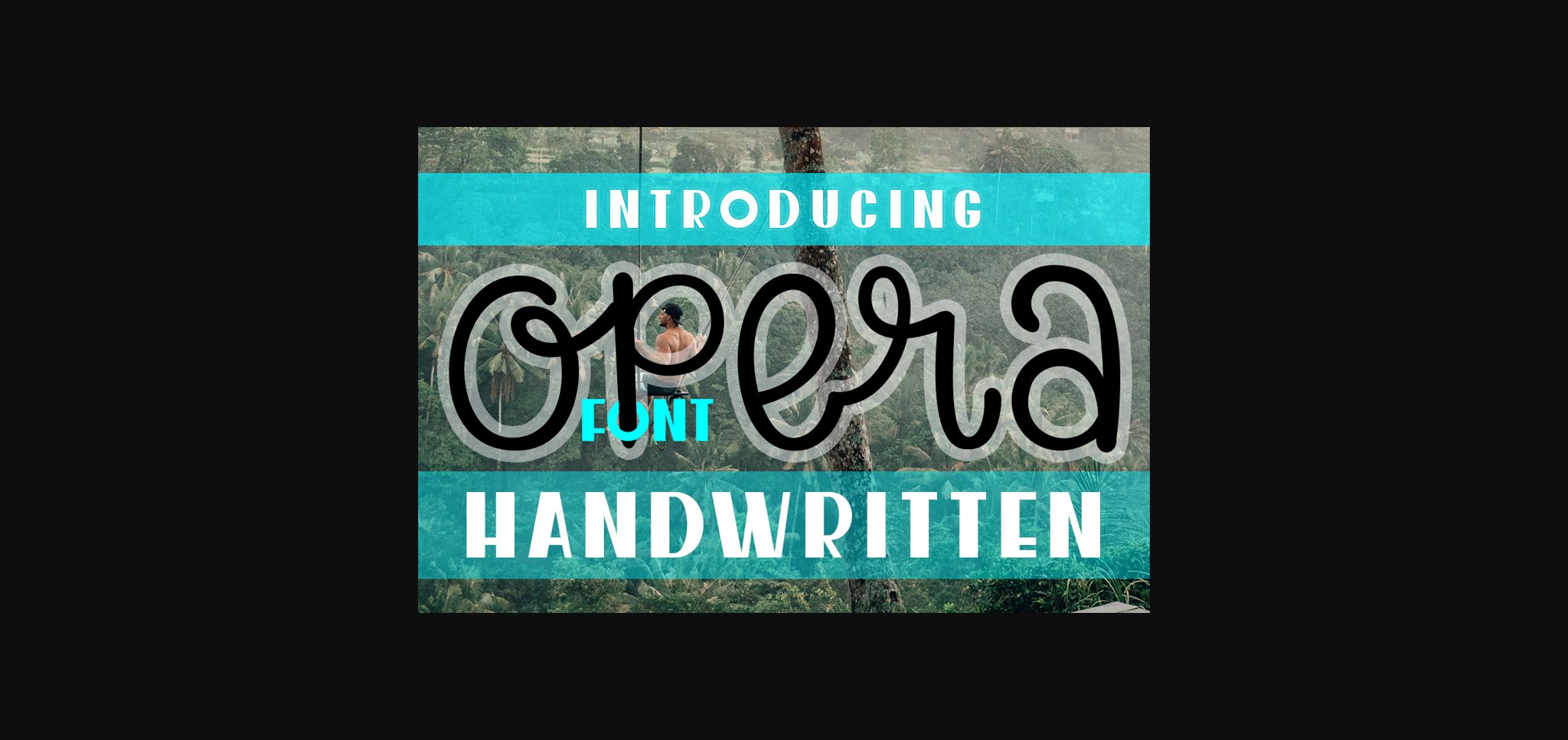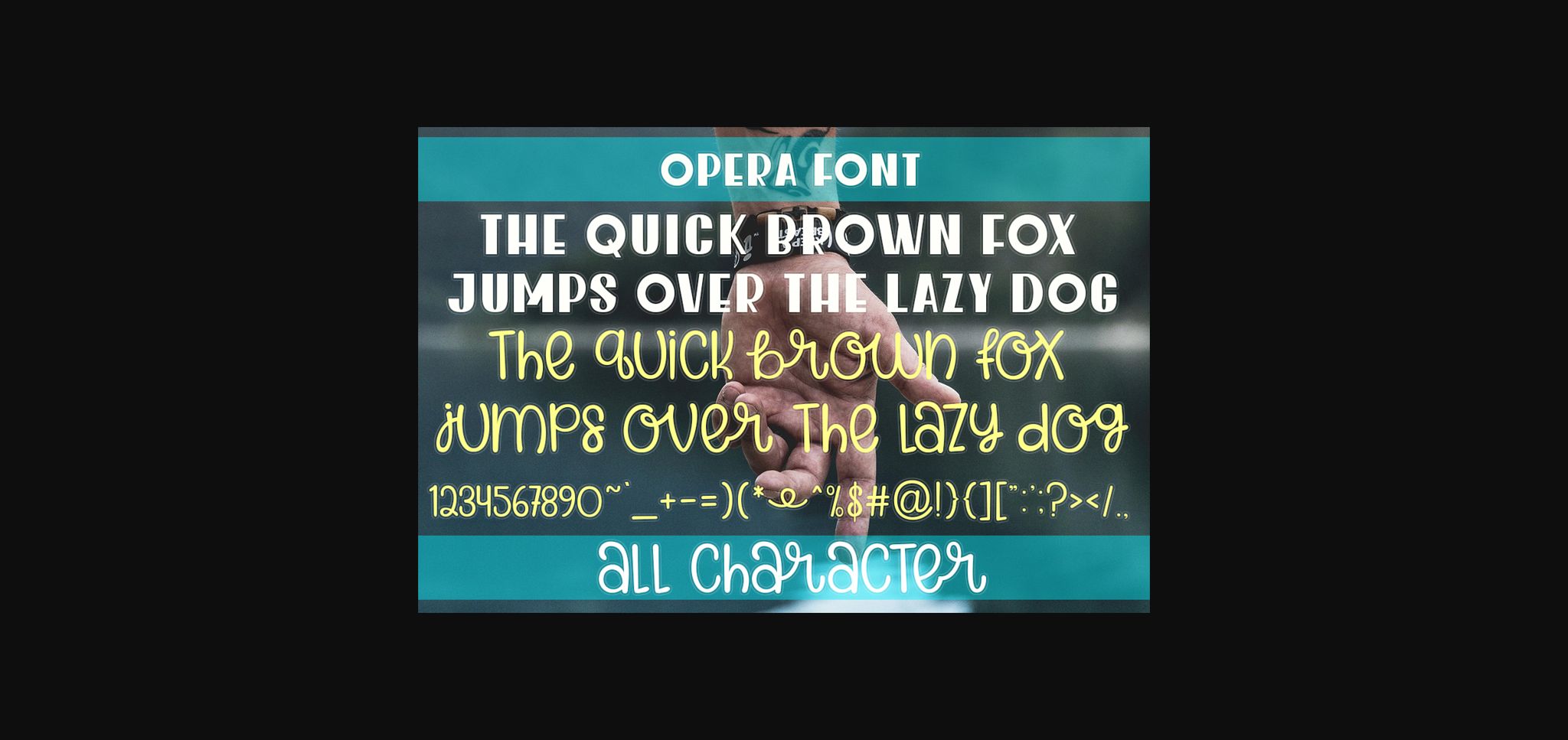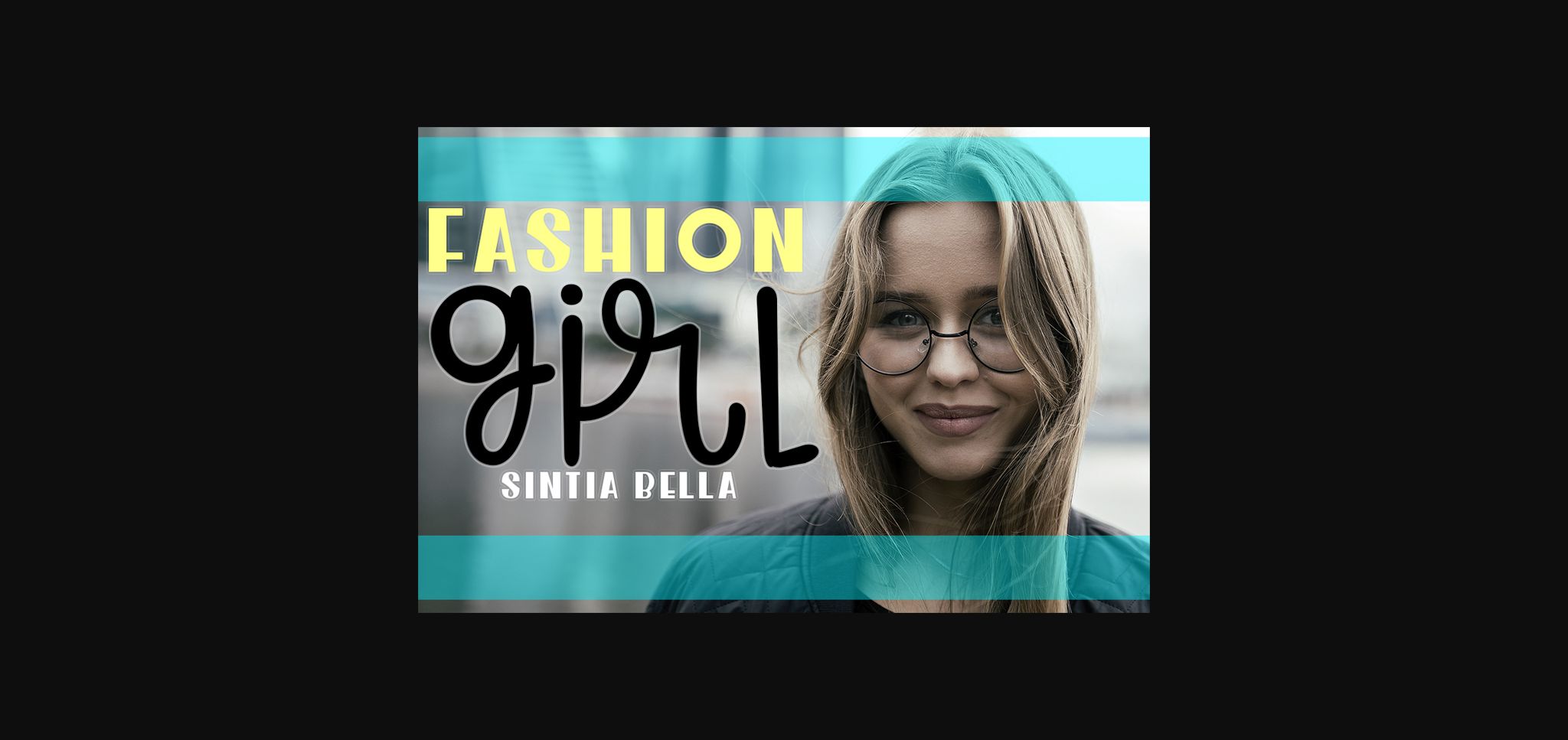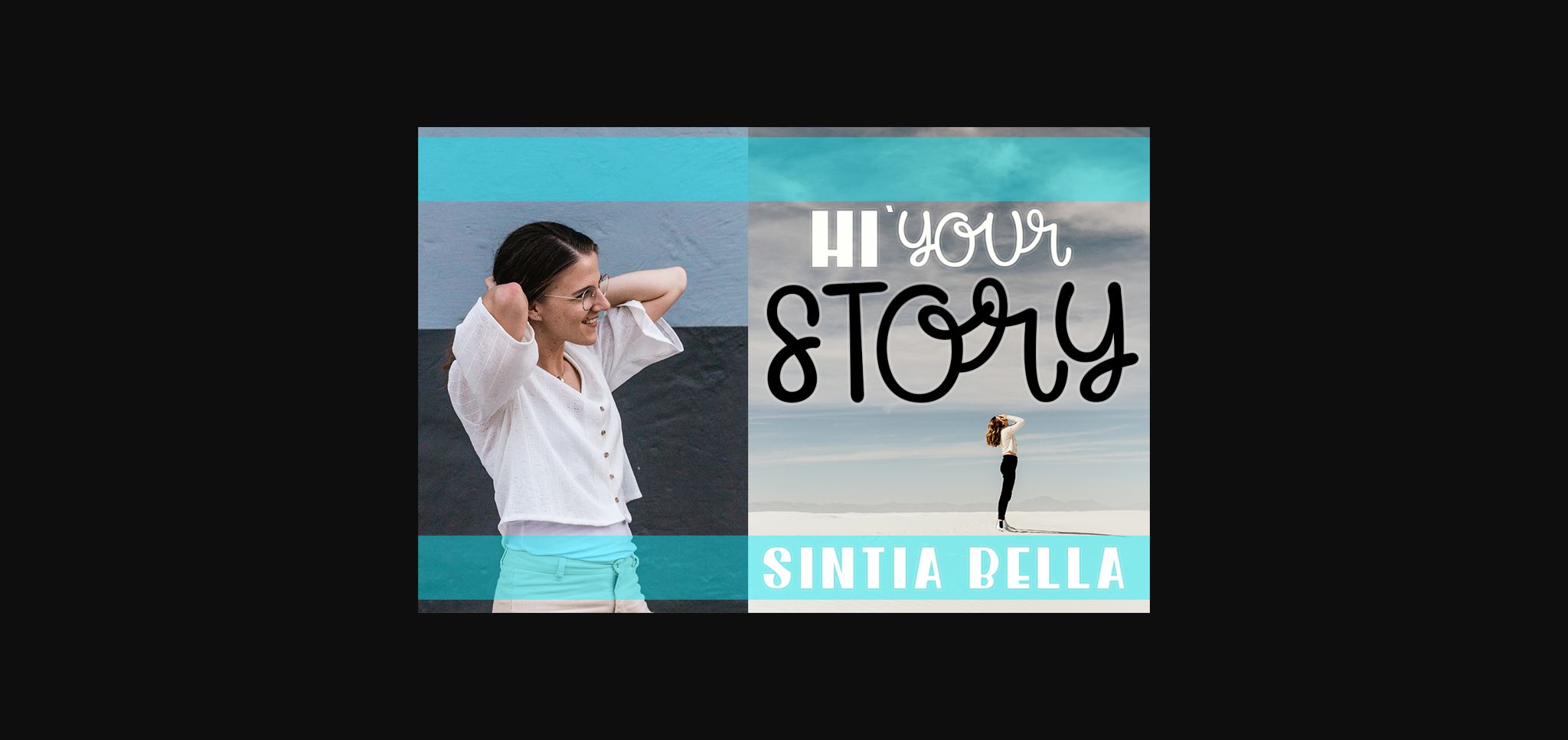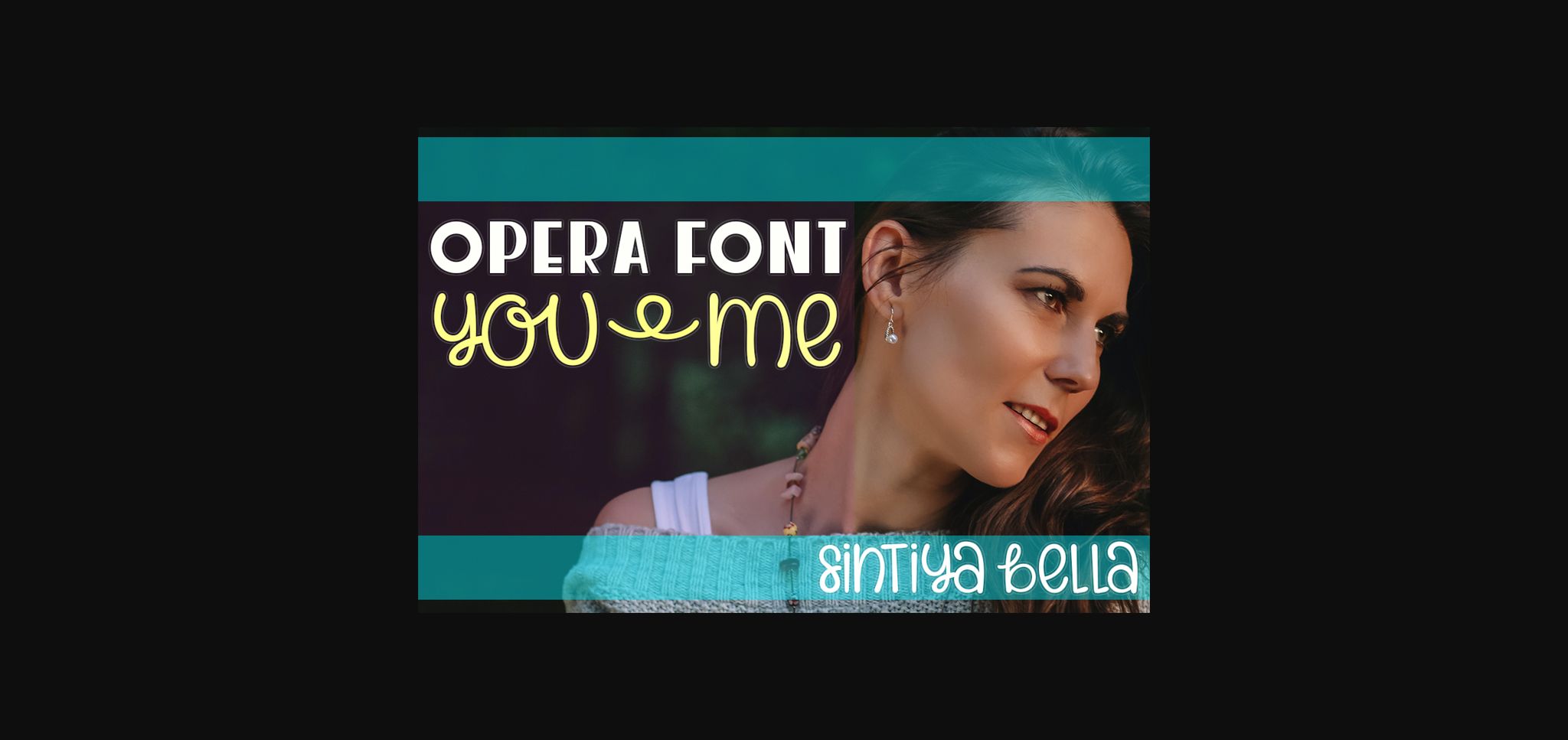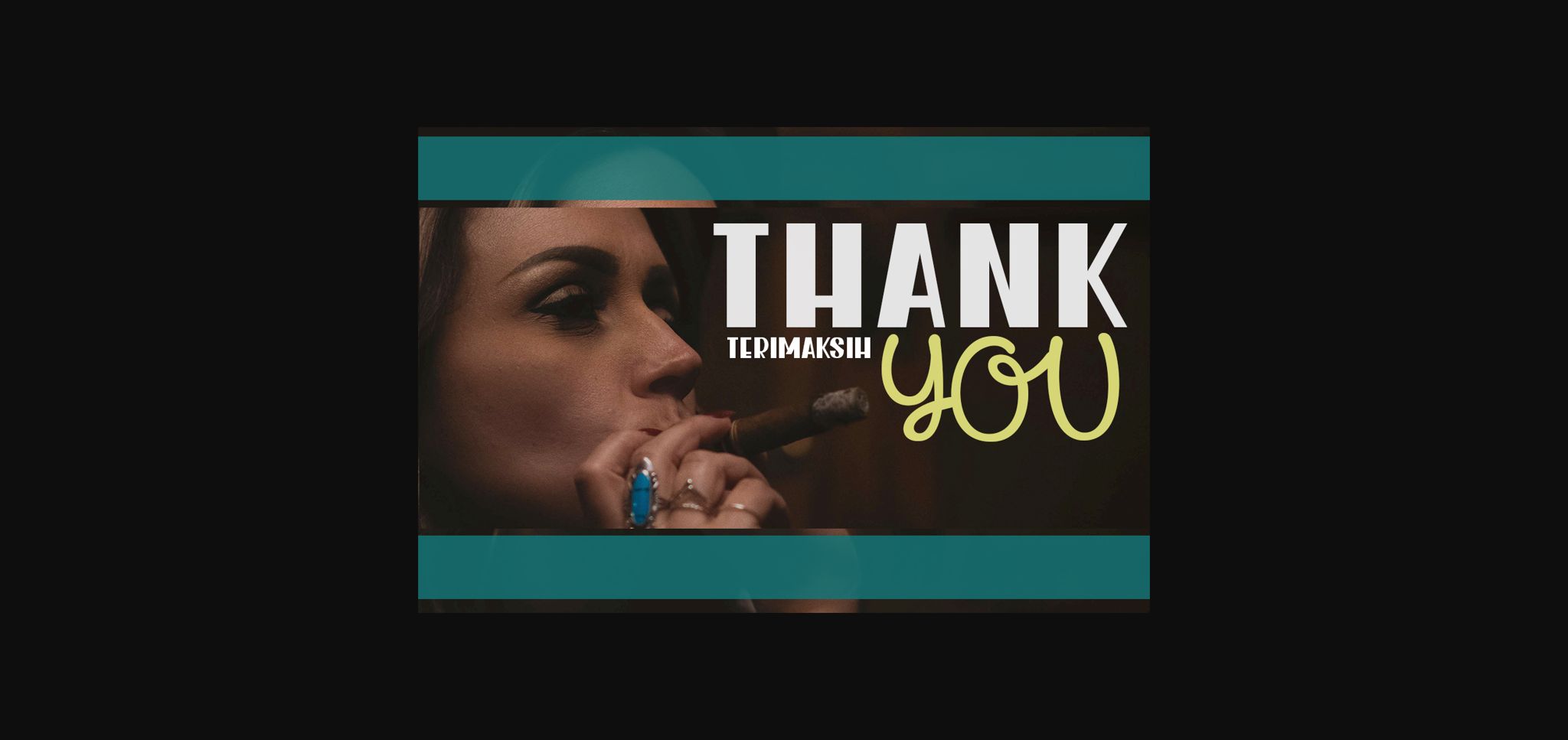
HomeSans Serif FontsOpera Font Sans Serif Fonts Opera Font FacebookXPinterestWhatsApp 1 of 8 ... Opera Font Poster 2... Opera Font Poster 3... Opera Font Poster 4... Opera Font Poster 5... Opera Font Poster 6... Opera Font Poster 7... Opera Font Poster 8... About Opera Font Opera is a cute and casual handwritten font with an incredibly friendly feel. Whether you’re looking for fonts for Instagram or calligraphy scripts for DIY projects, this font will turn any creative idea into a true piece of art! DOWNLOAD NOW People also explored Elise Dafisa Script Font Aliantyara Signature Font Dramatic Summer Watermelon Font Black Pastel Font Ravi Font Farmhouse Font Happy Monday Font Lazie Victory Font 324 0 TagsOperaOpera Font Previous articleLakisa Rounded Expanded FontNext articleNathaniela Font LEAVE A REPLY Cancel reply Comment: Please enter your comment! Name:* Please enter your name here Email:* You have entered an incorrect email address! Please enter your email address here Website: Save my name, email, and website in this browser for the next time I comment. Personal Use Free Berry Personal Use Free Read more about this font Veronica Personal Use Free Read more about this font Groomer Personal Use Free Read more about this font Nikoleta Personal Use Free Read more about this font BLOG Fonts That Capture the Spirit of New York City New York City is more than just a place—it’s an experience, a rhythm, a visual language... Elegant Wedding Invitation Fonts – Handwritten & Script Fonts Exploring Font Trends Using Fonts in Digital Marketing: Tips to Strengthen Your Brand Identity